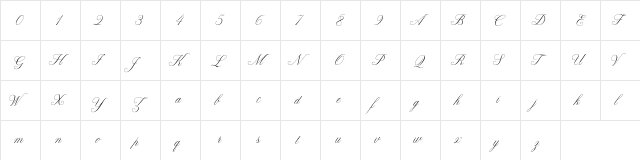
Claudya Script Regular
Design Context for Claudya Script Typeface
Claudya Script brings a calligraphic fluidity to the page — its connecting strokes and expressive curves give it an unmistakably human quality.
Font Pairing: Combine Claudya Script with a simple geometric sans for maximum contrast — the tension between flowing curves and clean structure is a classic typographic pairing.
Pro Tip: Use Claudya Script for short runs of text — names, titles, or taglines. Extended body copy in script faces tires the eye quickly.